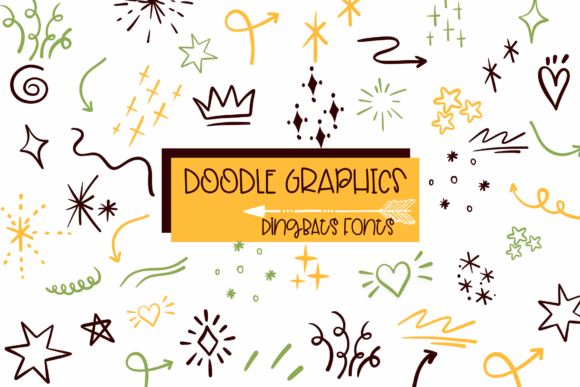
Doodle Graphics Font: Elevate Your Creative Projects with a Sketchy Twist
Doodle Graphics Font is a unique and versatile dingbats font that brings a sketchy, hand-drawn feel to your creative projects. With its distinctive theme, this font is perfect for adding a personal touch to various designs, from wedding invitations and DIY crafts to decorations, logos, and more. In this article, we’ll explore the features and benefits of Doodle Graphics Font, and how it can enhance your creative endeavors.
What is Doodle Graphics Font?
Doodle Graphics Font is a dingbats font, which means it’s a type of font that features symbols, icons, and graphics rather than traditional alphabet letters. This font is specifically designed with a sketch style, giving it a charming, hand-drawn look that’s perfect for adding a touch of personality to your designs.
The font comes with a wide range of graphics and symbols, including shapes, lines, and icons, which can be used to create unique and eye-catching designs. Whether you’re looking to add a whimsical touch to your wedding invitation or create a custom logo for your business, Doodle Graphics Font has got you covered.
Creative Ways to Use Doodle Graphics Font
Doodle Graphics Font is an incredibly versatile font that can be used in a variety of creative projects. Here are some ideas to get you started:
- Wedding Invitations: Add a touch of whimsy and romance to your wedding invitations with Doodle Graphics Font. Use the font’s intricate designs and patterns to create beautiful, one-of-a-kind invitations that set the tone for your special day.
- DIY Crafts: Take your DIY crafts to the next level with Doodle Graphics Font. Use the font to add custom labels, tags, and decorations to your handmade projects, such as candles, soap, and jewelry.
- Decorations: Create custom decorations for your home or office using Doodle Graphics Font. Design unique wall art, garlands, and other decorative items that add a personal touch to your space.
- Logos and Branding: Use Doodle Graphics Font to create a custom logo for your business or brand. The font’s unique, hand-drawn style can help your brand stand out and establish a memorable identity.
Benefits of Using Doodle Graphics Font
Doodle Graphics Font offers a range of benefits that make it an ideal choice for creative projects. Here are some of the advantages of using this font:
- Unique and Versatile: Doodle Graphics Font is a one-of-a-kind font that offers a unique, hand-drawn style. Its versatility makes it suitable for a wide range of creative projects, from wedding invitations to logos and branding.
- Scalable: Doodle Graphics Font is scalable, which means you can use it for various design projects, from small icons to large banners.
- Customizable: The font allows for endless customization options. Experiment with different colors, patterns, and designs to create unique and personalized projects.
Tips and Tricks for Using Doodle Graphics Font
To get the most out of Doodle Graphics Font, here are some tips and tricks to keep in mind:
- Experiment with Colors: Don’t be afraid to experiment with different colors and patterns when using Doodle Graphics Font. The font’s hand-drawn style lends itself well to bold, bright colors and playful patterns.
- Mix and Match: Combine Doodle Graphics Font with other fonts and graphics to create unique and interesting designs.
- Pay Attention to Details: Take the time to pay attention to details when using Doodle Graphics Font. The font’s intricate designs and patterns require careful attention to ensure they look their best.
Doodle Graphics Font is a versatile and unique dingbats font that adds a sketchy, hand-drawn feel to your creative projects. With its wide range of graphics and symbols, this font is perfect for wedding invitations, DIY crafts, decorations, logos, and more. Whether you’re a designer, artist, or DIY enthusiast, Doodle Graphics Font is an excellent choice for adding a personal touch to your designs. So why not give it a try and see the creative possibilities unfold?